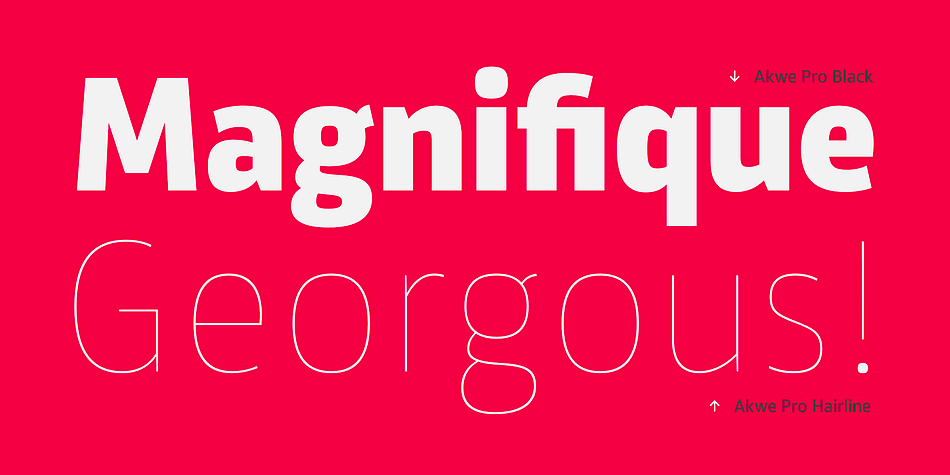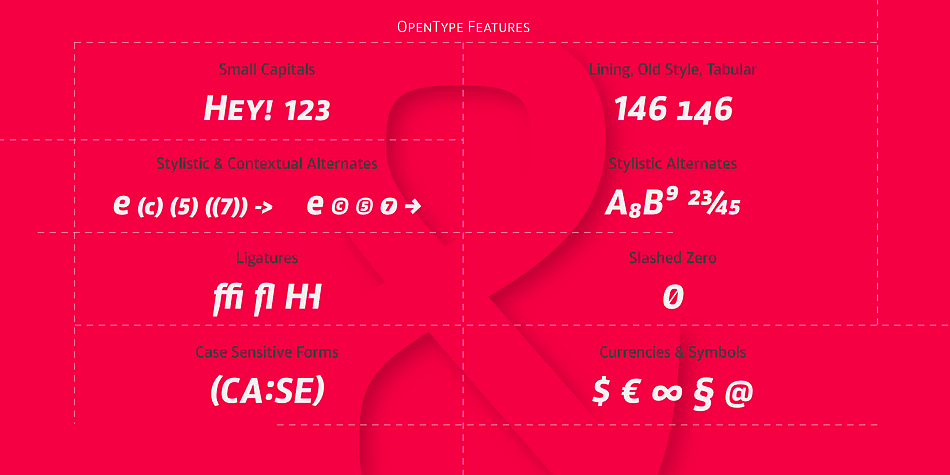
Akwe Pro
Designed by Roch Modrzejewski, Akwe Pro is a sans serif font family. This typeface has one hundred and sixty-four styles and was published by ROHH.
Akwe Pro is a professional, ultra versatile sans serif typeface characterized by excellent legibility and modern design perfect for all design purposes.
It is designed for use in long and short paragraphs of text, headlines, and user interfaces. Its distinctive character and carefully crafted proportions make it a great option for brand identification and logo design.
Akwe Pro mega family consists of 164 fonts - each weight in uprights, italics and small caps versions. It has extended language support and true italics, as well as broad number of OpenType features, such as small caps, case sensitive forms, standard and discretionary ligatures, stylistic sets, contextual alternates, lining, oldstyle, tabular and small cap figures, slashed zero, fractions, superscript and subscript, ordinals, currencies, and symbols.